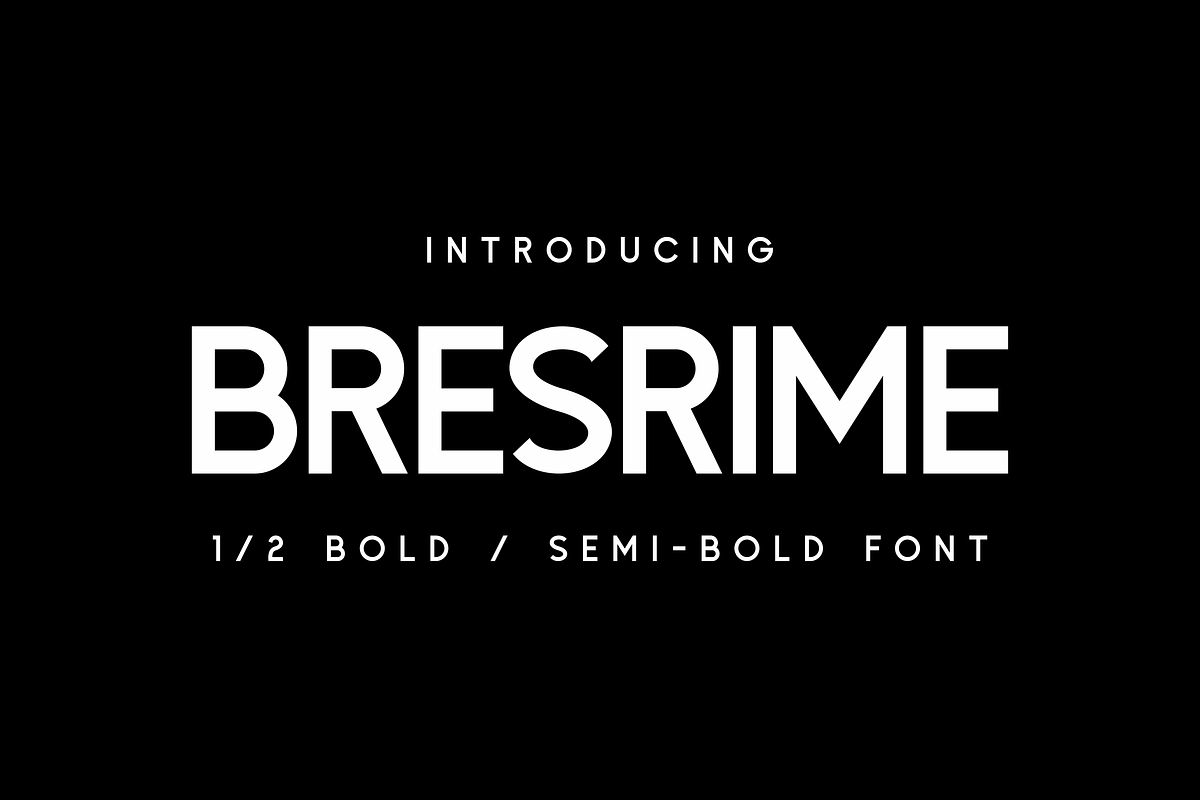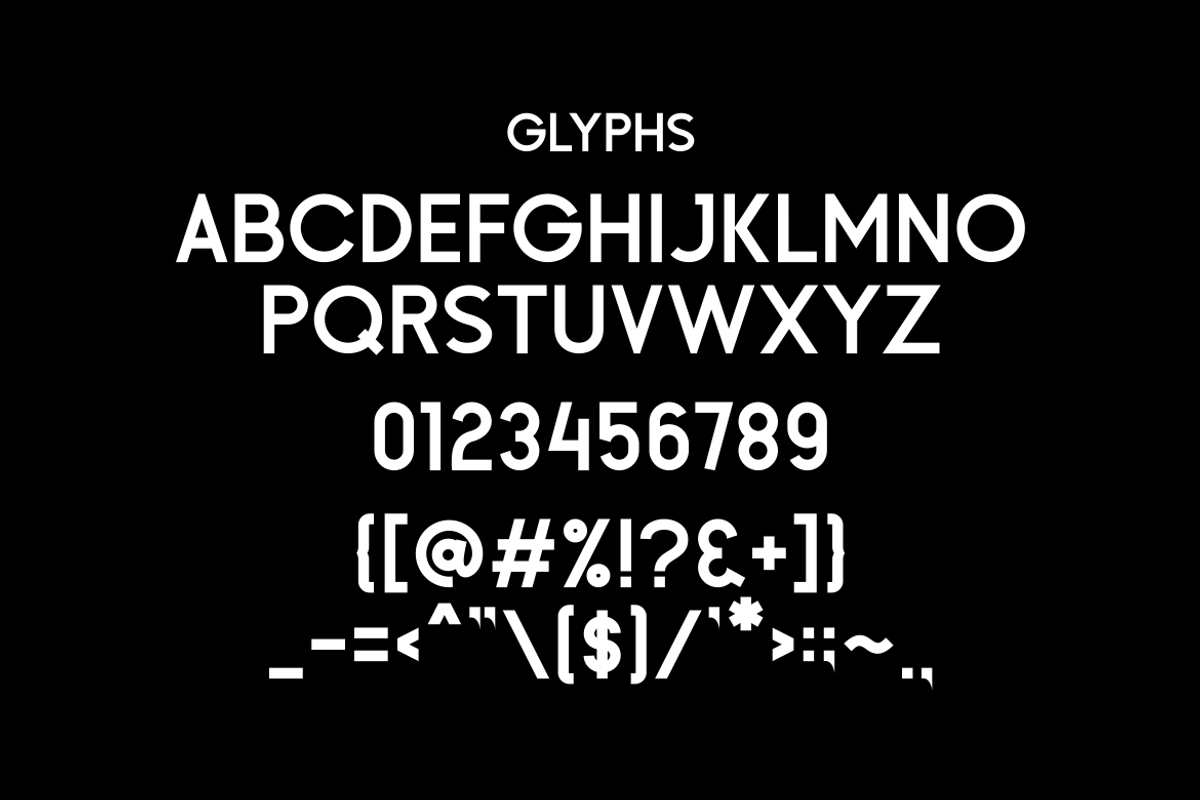
Bresrime
Introducing Bresrime, a sophisticated serif font designed to elevate your creative projects. Its timeless elegance and versatility make it ideal for branding, logos, editorial layouts, and invitations. Whether you're creating sleek designs or aiming for a modern yet classic aesthetic, Bresrime is the perfect choice to make your work stand out.